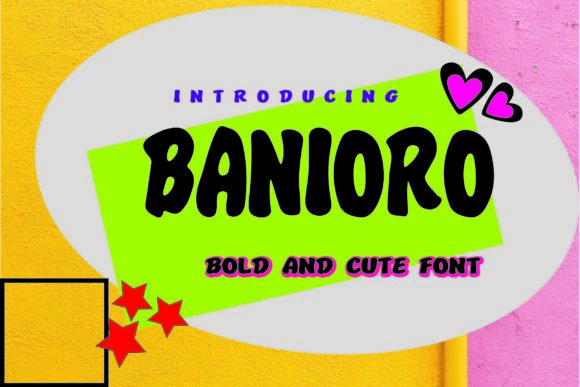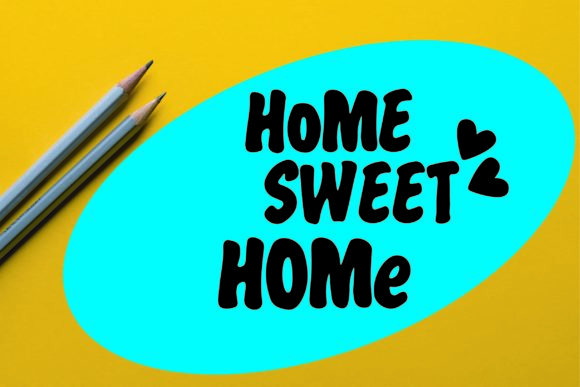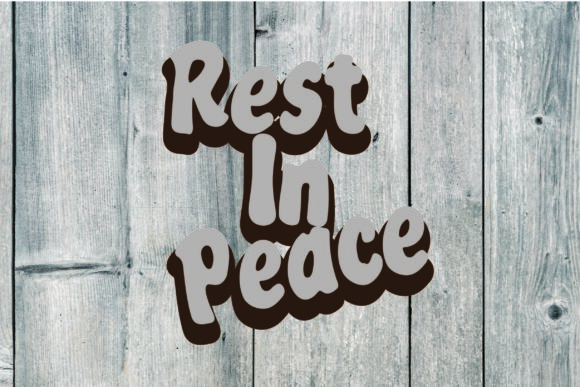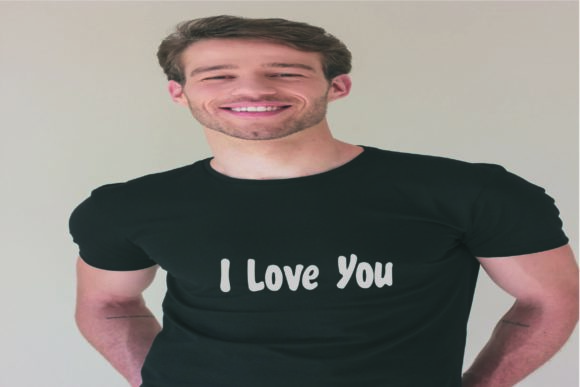
The Perfect Font to Bring Your Designs to Life
Have you ever sat in front of your computer, staring at a blank screen, trying to come up with the perfect design? The words won’t flow, the ideas won’t come, and you’re left feeling frustrated and stuck. But what if you had the right tool to unlock your creativity? That’s where the Banioro Font comes in – a cool and thick lettered display font that’s sure to elevate any creation.
This versatile font is the perfect addition to any designer’s library. With its unique style and character, it has the power to bring your designs to life and make them truly stand out. Whether you’re working on a project for a client or creating something just for fun, the Banioro Font is an incredible asset to have at your disposal.
Banioro Font Key Features
- Font Family: Banioro is a sans-serif font family designed for readability and versatility.
- Font Size: Banioro is available in 6 font weights, ranging from Light (100) to Black (900), catering to different design requirements.
- Resolution: Banioro is optimized for high-resolution displays, making it suitable for use in digital media, such as web design, mobile apps, and print materials.
- Unique Characteristic: Banioro features a distinctive rounded design with subtle geometric elements, making it stand out in modern typography.
- Language Support: Banioro supports a wide range of languages, including Latin, Cyrillic, and Greek scripts, making it a versatile choice for global projects.
Review: Banioro Font
Overall, I’d say the Banioro Font is a decent addition to any designer’s toolkit. There are some nice features that make it stand out, but also some areas where it falls short.
- Unique aesthetic: Banioro Font has a distinct, exotic feel to it that can add a lot of character to a design.
- Good legibility: At larger font sizes, Banioro Font is easy to read and understand, making it suitable for body text.
- Wide compatibility: I’ve had no issues using Banioro Font in various design applications, including Adobe Creative Cloud and Google Web Fonts.
- Smaller font sizes can be difficult to read: When used at smaller font sizes, Banioro Font’s unique aesthetic can become a liability, making it hard to decipher.
- Limited language support: Unfortunately, Banioro Font doesn’t support a wide range of languages, which can limit its usability in global designs.
- Not ideal for headlines: While Banioro Font is great for body text, I wouldn’t recommend using it for headlines or titles, as it can be a bit too playful for those applications.
While Banioro Font has its limitations, it’s still a solid choice for designers looking to add some visual interest to their work. With some careful consideration of its strengths and weaknesses, I think it can be a valuable addition to any design project.
Tips for Getting the Most Out of Banioro Font
Here are some tips to get the most out of Banioro Font:
- Use Banioro Font for creative projects that require a unique and elegant look.
- Combine Banioro Font with other fonts to create a visually appealing design.
The Banioro Font includes a wide range of languages, including Latin, Cyrillic, and Greek alphabets. It also includes special features like ligatures, swashes, and ornaments to add a touch of elegance to your designs. Additionally, the font includes advanced OpenType features like stylistic sets, contextual alternates, and historical forms.